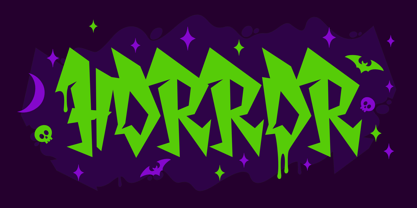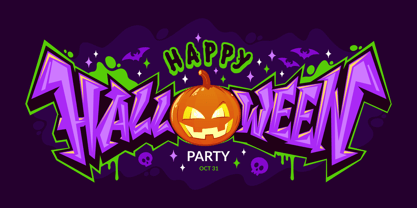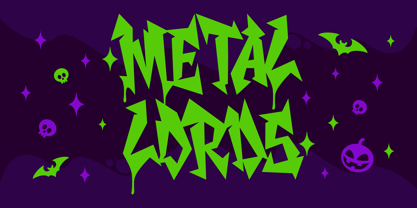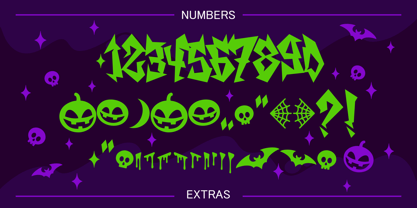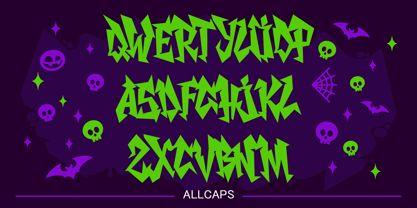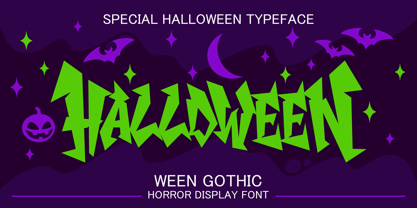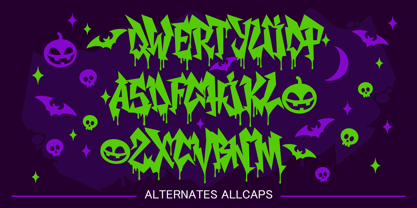
Ween Gothic
by Iron Set Studio
The Ween Gothic Font Family was designed by Anton Kustsinski and published by Iron Set Studio. Ween Gothic contains 1 styles. More about this family
This Halloween-inspired font embodies the spirit of darkness and rebellion. Designed for heavy music bands, horror-themed posters, and street art, it combines a graffiti aesthetic with dripping, distorted letterforms. The alternate all-caps version amplifies its raw energy - each character appears to melt and bleed, creating a chaotic yet stylish atmosphere. Perfect for projects that demand intensity, attitude, and a wicked Halloween vibe.
Designers: Anton Kustsinski
Foundry: Iron Set Studio
Iron Set Studio is a bold and experimental type design studio focused on creating unique graffiti, stencil, and abstract fonts. Inspired by urban culture, street art, and modern visual trends, the studio transforms raw energy into expressive letterforms that challenge convention. Each font blends creativity with attitude, making text not just a message, but a striking visual identity for artists, designers, and brands seeking originality.